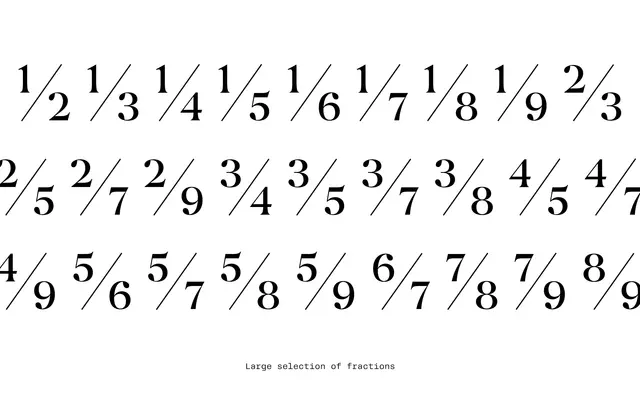
Englisch specimen from Interval Type
A contemporary display serif drawing on 17th and 18th century English typefaces, particularly Caslon and the Fell Types, with deliberate eccentricity and high vertical contrast.
Six weights from Light to Black, each with a matching italic, make up a family designed for titles and logotypes rather than running text. The design takes cues from Caslon and the Fell Types without attempting a strict historical revival, instead pulling forward the open forms, vertical contrast and idiosyncratic rhythm of that period into a more modern register. Works across print and web wherever a headline face with period character is needed.
Inspired by 17th and 18th century English typography, particularly Fell Types and Caslon, with high vertical contrast and open forms; positioned explicitly as a display-exclusive family rather than a text typeface.